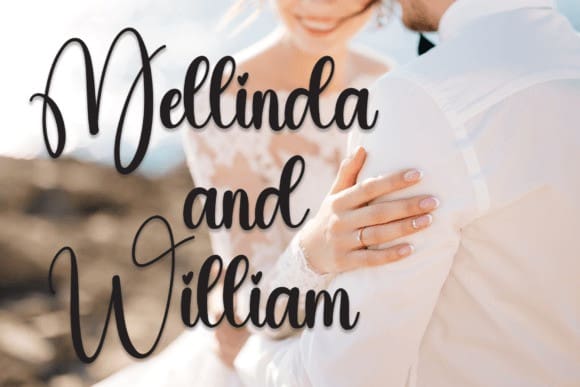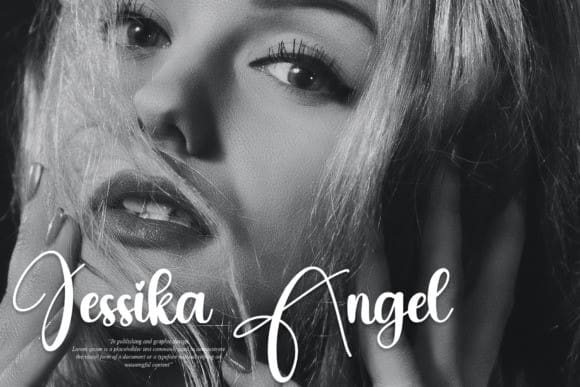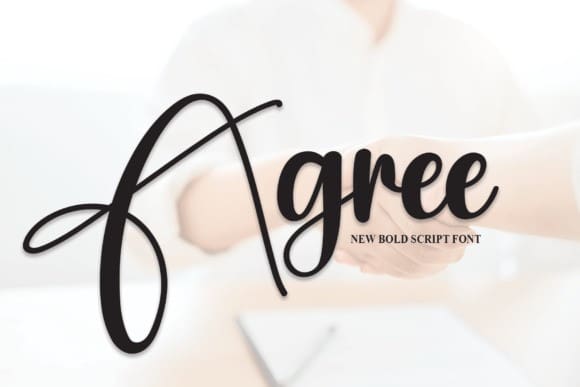
Agree Script Font
Agree Script Font, looks great on bold titles and flashy banners. It will give your design an artistic and casual look and is also great for posters, magazine covers, logo design, wall art, and so much more.